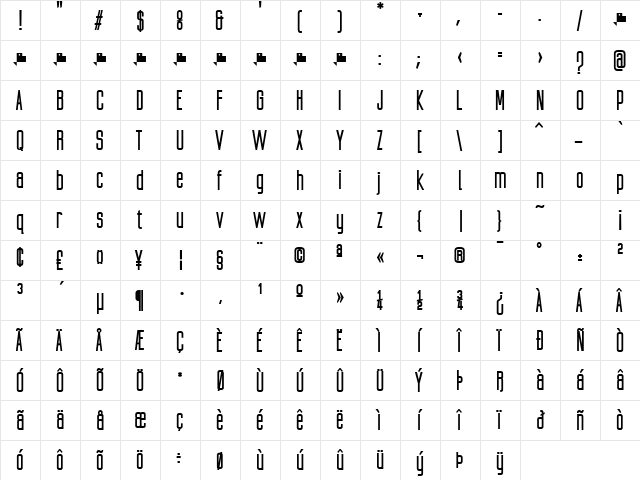
Ubicada Pro Bold
Design Context for Ubicada Pro Typeface
Ubicada Pro takes a measured approach to typography — its balanced proportions and neutral character make it a reliable workhorse for both digital and print work. The heavy weight commands attention and anchors typographic hierarchies.